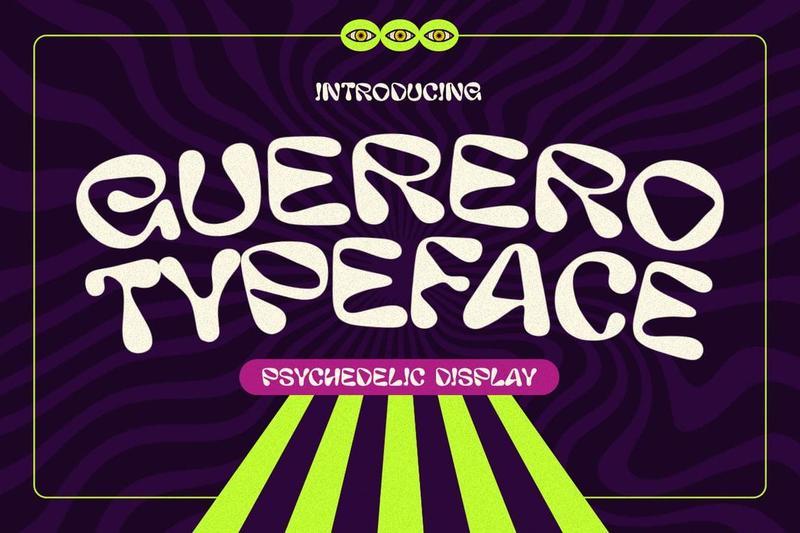
**Guerero** is a psychedelic display font inspired by the free-spirited aesthetics of the seventies, featuring soft organic curves, flowing shapes, and expressive character forms. Its playful design creates a bold visual statement that brings creativity, nostalgia, and artistic energy to any project.
Why you’ll love using Guerero:
* Perfect for music posters, festival graphics, and album artwork
* Captures authentic psychedelic and vintage-inspired aesthetics
* Adds bold personality and artistic flair to branding projects
* Ideal for eye-catching headlines, packaging, and creative merchandise
Created for designers who want expressive typography with a nostalgic twist, this typeface delivers a memorable retro atmosphere while remaining versatile for modern branding, editorial layouts, social media graphics, and promotional designs.